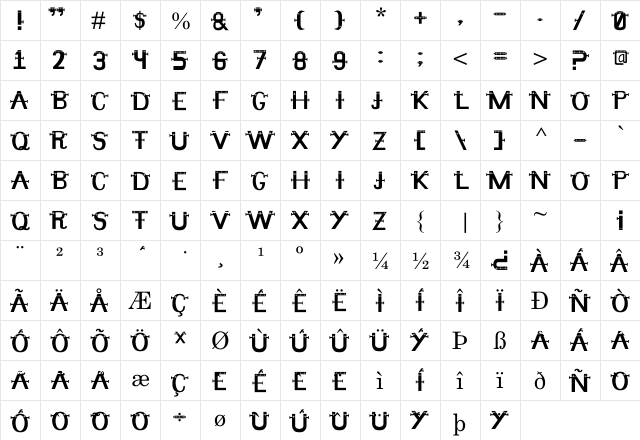
Frankenfont Regular
| Designer | Morris Fuller Benton |
Design Context for Frankenfont Typeface
Frankenfont is a composed and adaptable typeface that performs quietly and consistently across a wide range of design contexts.